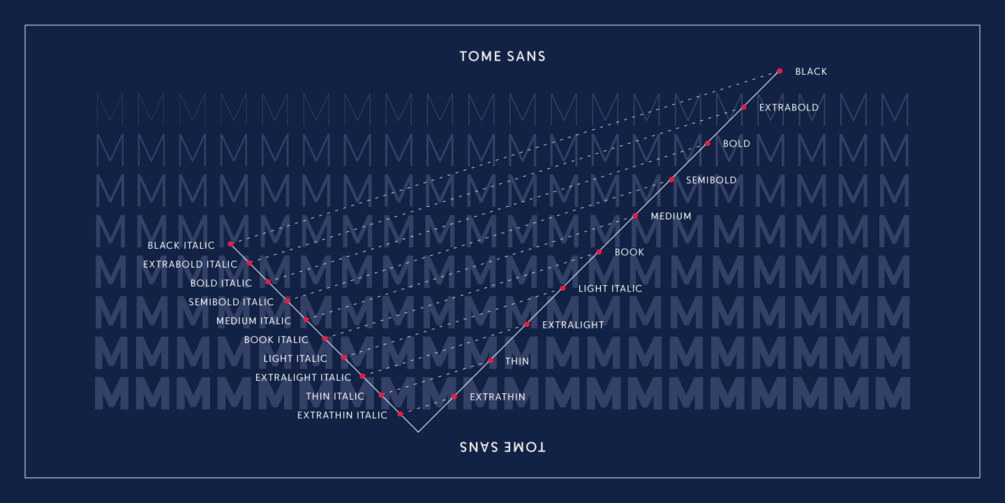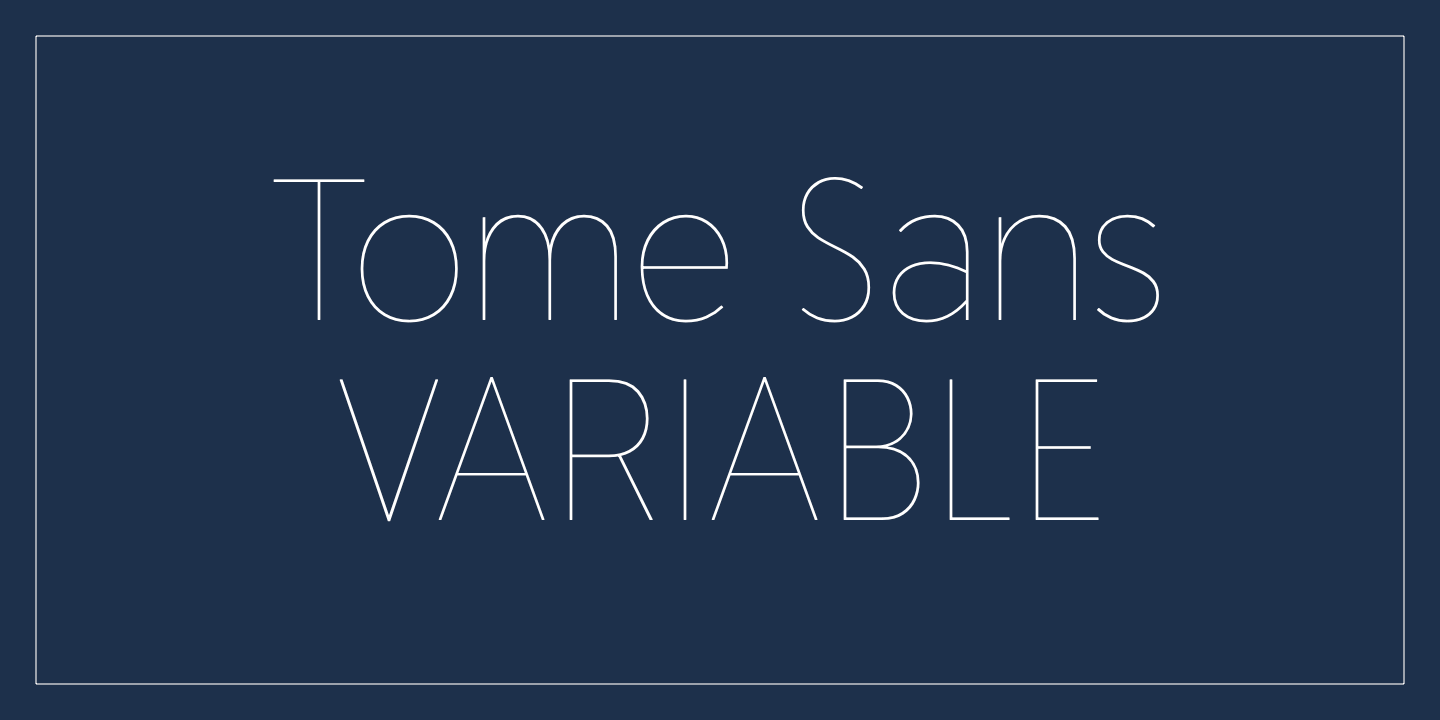
Tome Sans was created to address the need for a sans serif design that combined the forms and features that type designer Delve Withrington found appealing and proved to perform best across many environments. Setting aside the larger discussion of aesthetic neutrality in a typeface, Tome Sans does not bring attention to itself. It is not a typeface that subscribes to trends; rather, it is a more timeless design.
Tome Sans has a range of 10 weights from ExtraThin to Black with companion italics and boasts a Latin Plus glyph repertoire of over 860 glyphs. Among those glyphs are several sets of numerals (including Tabular and Oldstyle figures), arrows, and a trove of letters spanning several complete Unicode® ranges supporting over 220 languages. In addition, a host of thoughtful but unobtrusive OpenType features are built in and ready to assist with setting your composition. Give Tome Sans a spin; you’ll agree this family is a valuable typographic toolset for any designer.